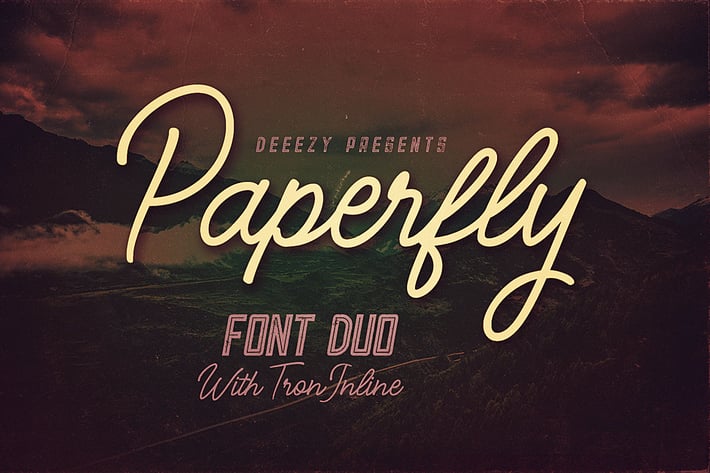
Paperfly Font Duo
Cool monoline & creative style font duo for your new projects. First font is modern & thin line style monoline script font with multi language support and lot of stylistic alternates. Second font is inline style display font with regular & grunge version (without multi language support).